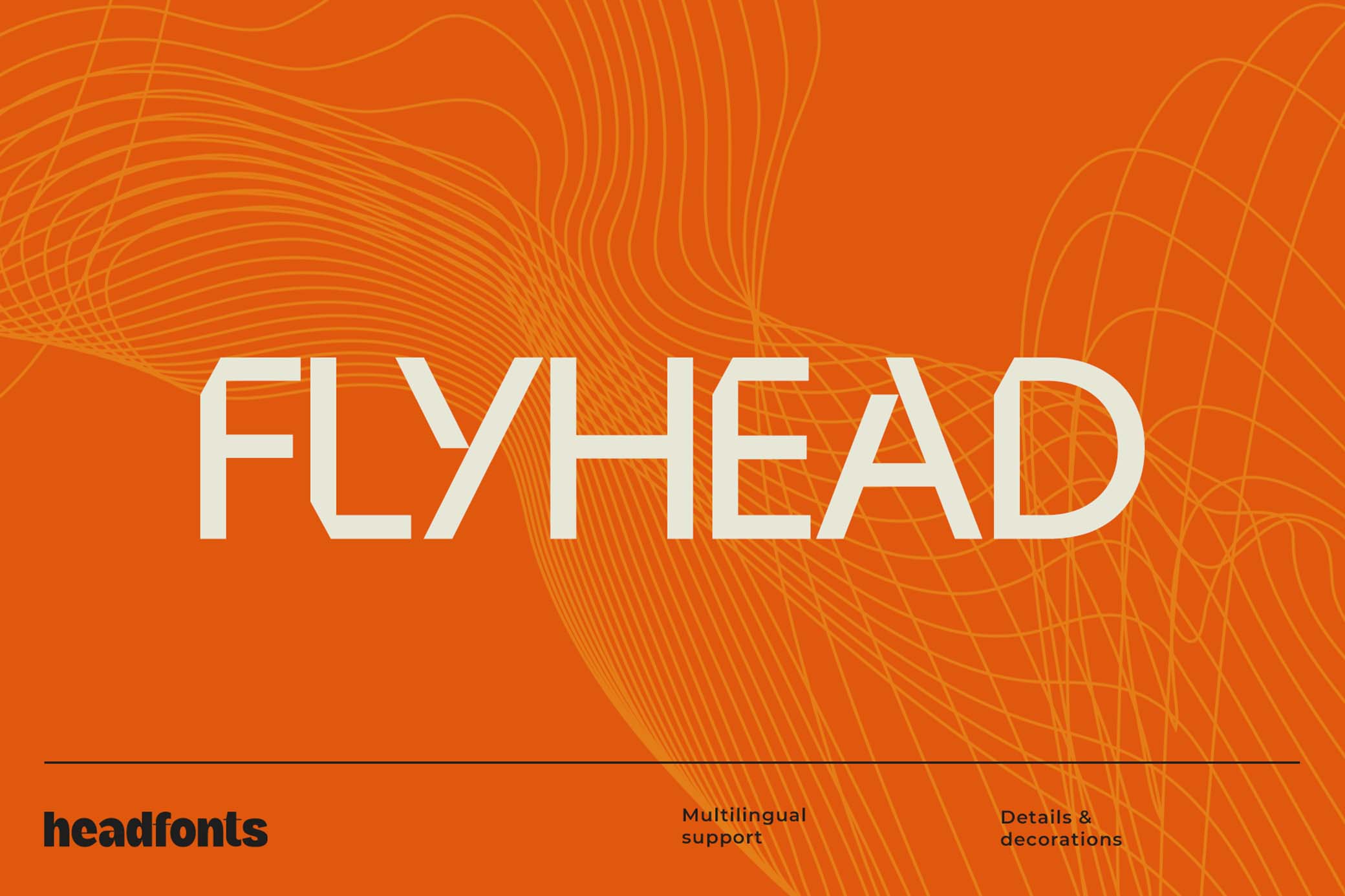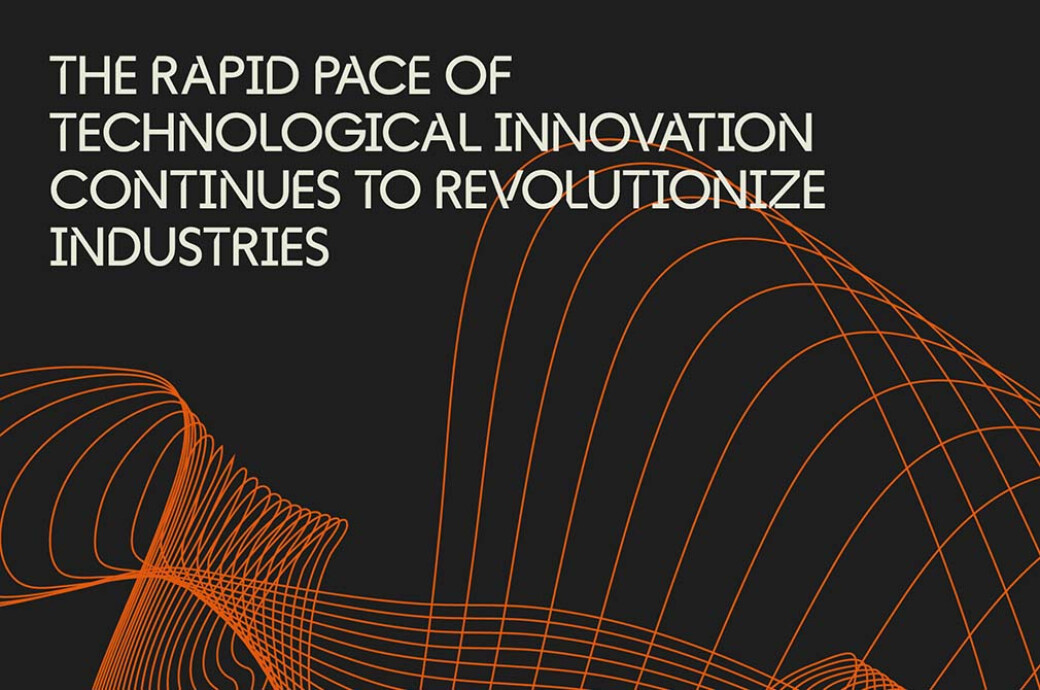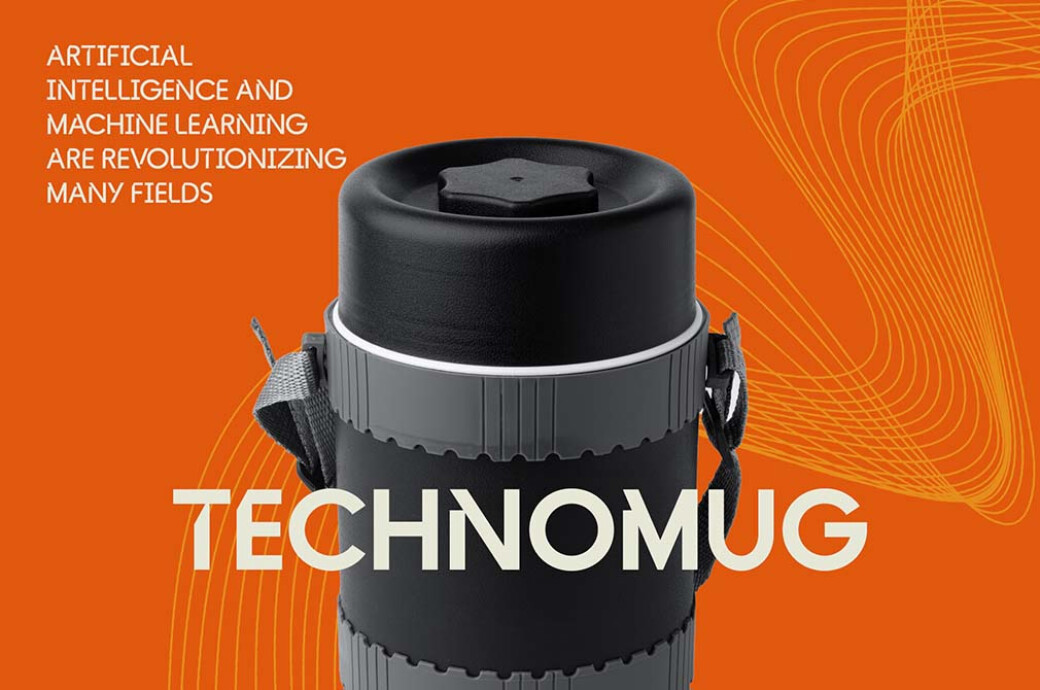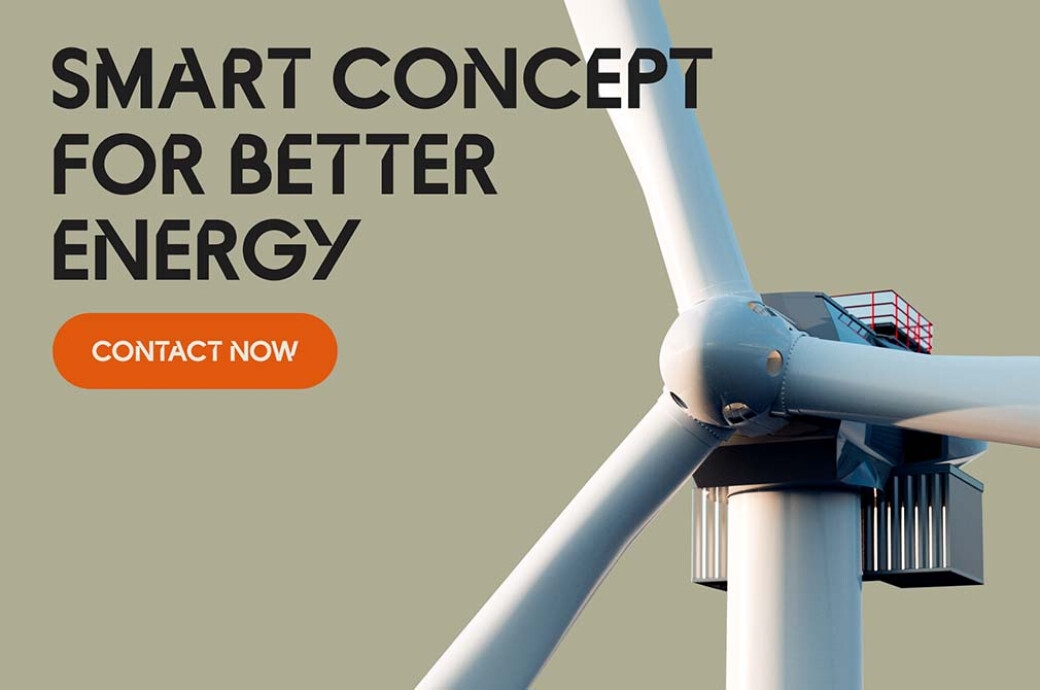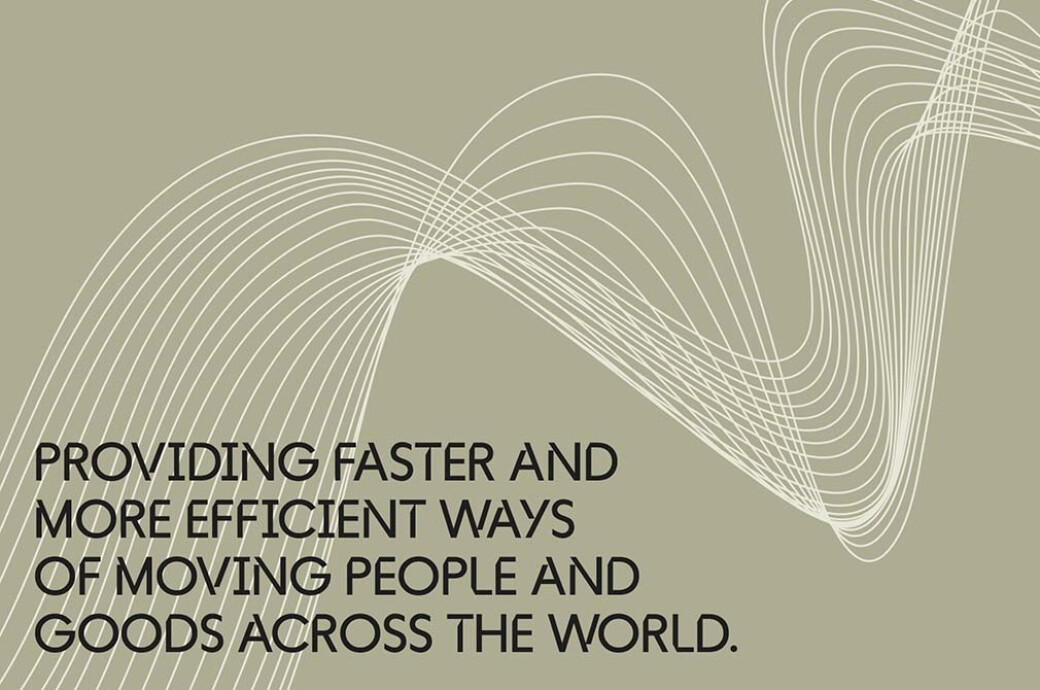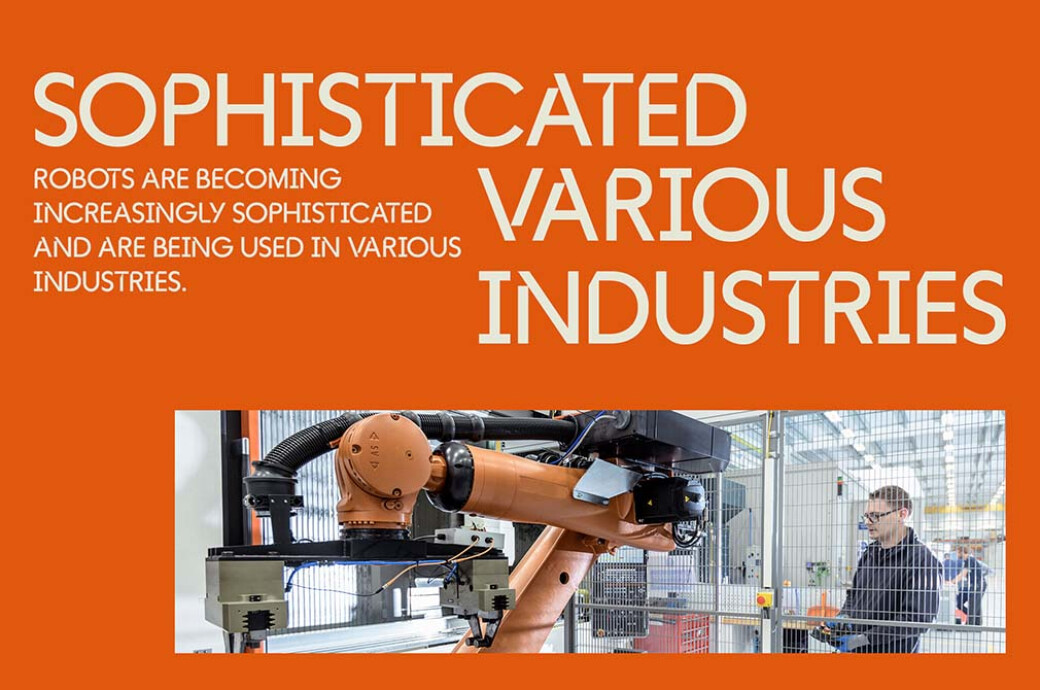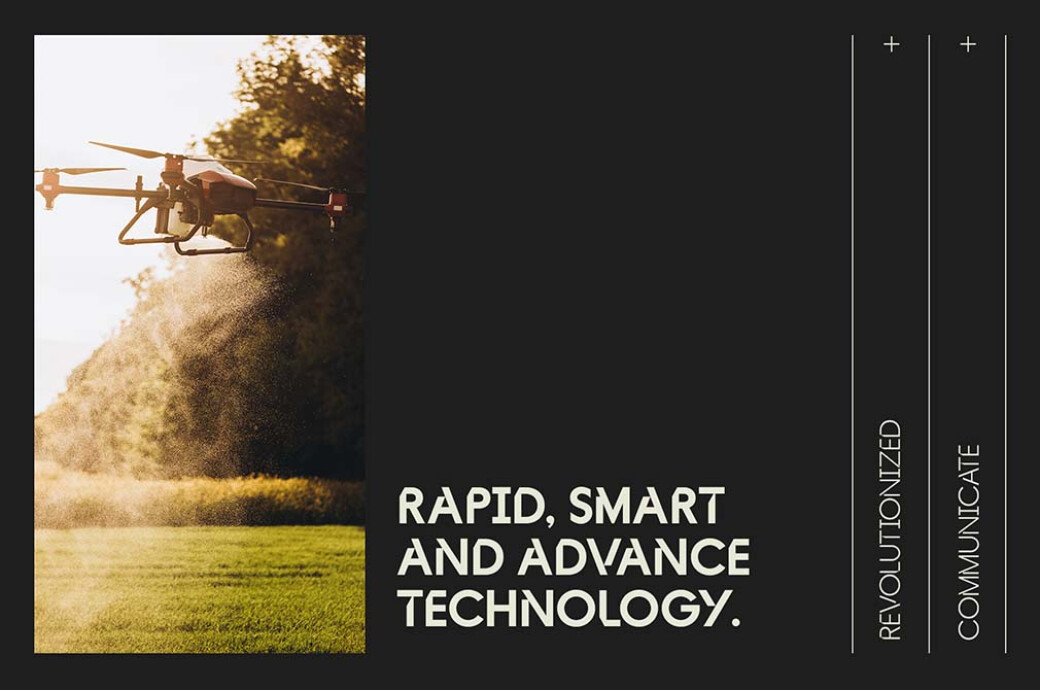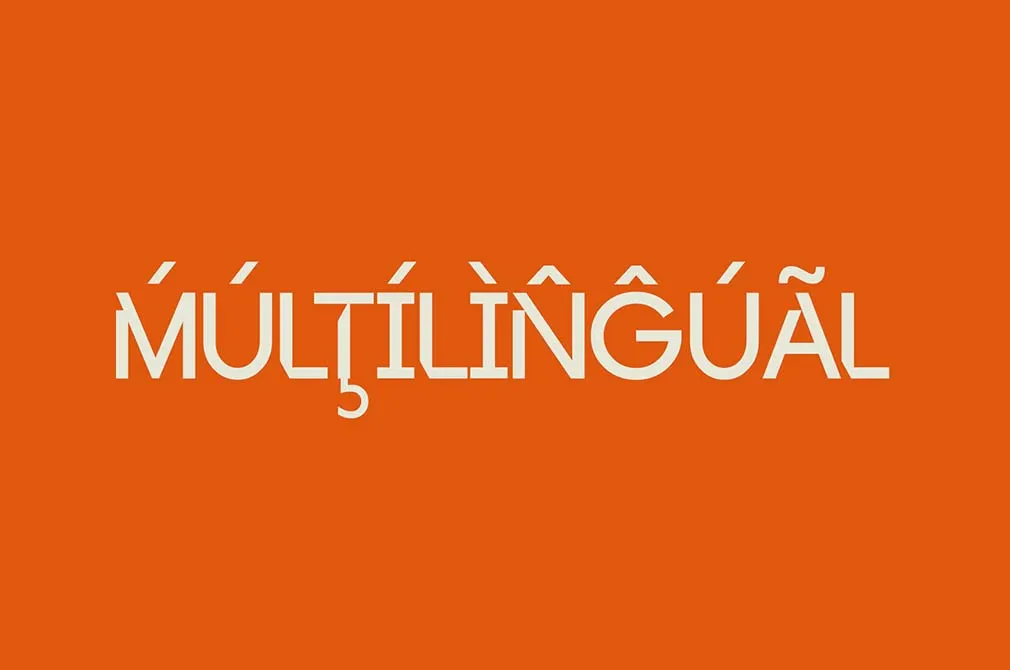
Flyhead Minimalist Tech Font
If you need a logo for your spacecraft or are simply mesmerized by geometric typography, we've got a font that'll reach your heart. And designs.Flyhead is a minimalist font designed with precision, featuring clean cuts and highly legible glyphs. It is available in three styles: Light, Regular, and Bold. A vast character set is foreseen for each style: uppercase characters, numerals, and symbols. The carefully designed glyphs ensure excellent readability, allowing your message to shine through clearly and professionally. You might use Flyhead in space-related projects, for tech branding, or anything sci-fi-related — and any project will eventually embody the spirit of innovation and progress.